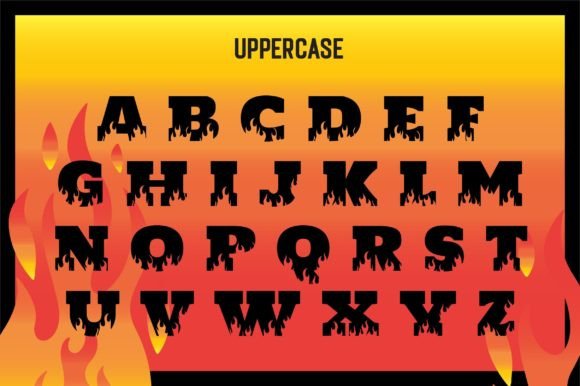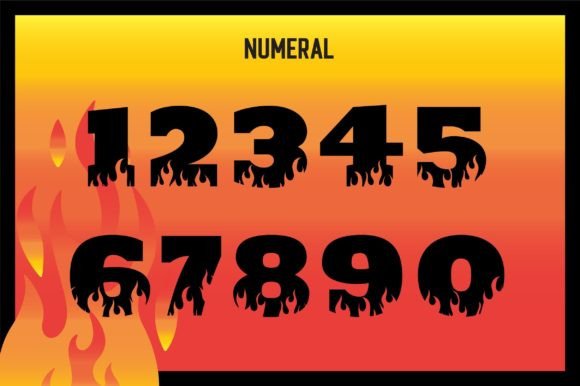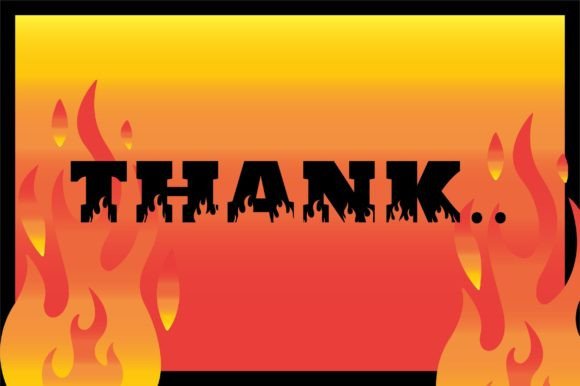
Ignite Your Designs with Flame Font: A Decorative Font Inspired by Fire
Are you looking for a font that adds a touch of warmth and energy to your designs? Look no further than Flame Font, a decorative font inspired by the fiery flames that can elevate your quotes, shirt designs, websites, branding, children’s designs, SVG designs, blogs, logos, invitations, and more!
What is Flame Font?
Flame Font is a unique and eye-catching font that is perfect for designers and crafters who want to add a spark to their work. The font is designed to resemble flames, with bold and curvy lines that give it a dynamic and fiery feel. Whether you’re creating a logo, a website, or a social media post, Flame Font is sure to grab attention and leave a lasting impression.
Key Features of Flame Font
- Unique Design: Flame Font is inspired by fire, making it a one-of-a-kind font that will set your designs apart from the rest.
- Versatile: This font is perfect for a wide range of design projects, from quotes and shirt designs to websites and branding.
- Same Capital and Lowercase Letters: The capital and lowercase letters in Flame Font are the same, making it easy to use and consistent in your designs.
Uses for Flame Font
Flame Font is a versatile font that can be used in a variety of design projects, including:
- Quotes: Add a touch of warmth and energy to your inspirational quotes with Flame Font.
- Shirt Designs: Create eye-catching shirt designs that will stand out with Flame Font.
- Websites: Add a pop of color and energy to your website with Flame Font.
- Branding: Use Flame Font to create a unique and memorable brand identity.
- Children’s Designs: Flame Font is perfect for children’s designs, such as coloring books, activity sheets, and more.
- SVG Designs: Use Flame Font to create custom SVG designs for cutting machines and more.
- Blogs: Add a touch of personality to your blog with Flame Font.
- Logos: Create a unique and memorable logo with Flame Font.
- Invitations: Use Flame Font to create custom invitations for parties, events, and more.
Tips for Using Flame Font
Here are a few tips for using Flame Font in your designs:
- Experiment with Colors: Flame Font looks great in a variety of colors, so don’t be afraid to experiment and find the perfect color for your design.
- Play with Sizes: Flame Font can be used in a variety of sizes, from small and subtle to large and bold.
- Combine with Other Fonts: Flame Font pairs well with a variety of other fonts, so try combining it with other fonts to create a unique look.